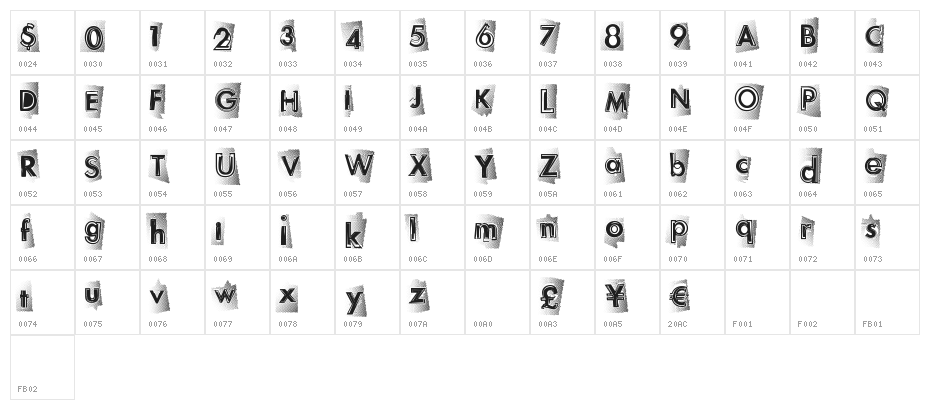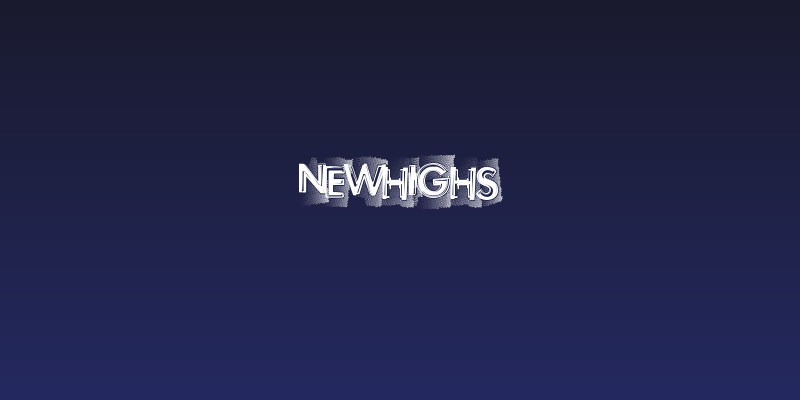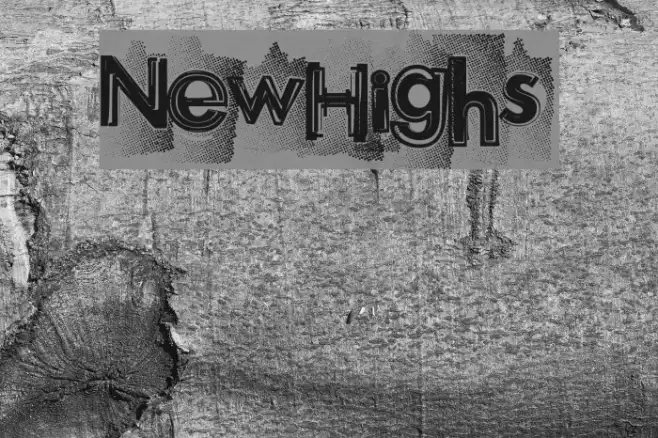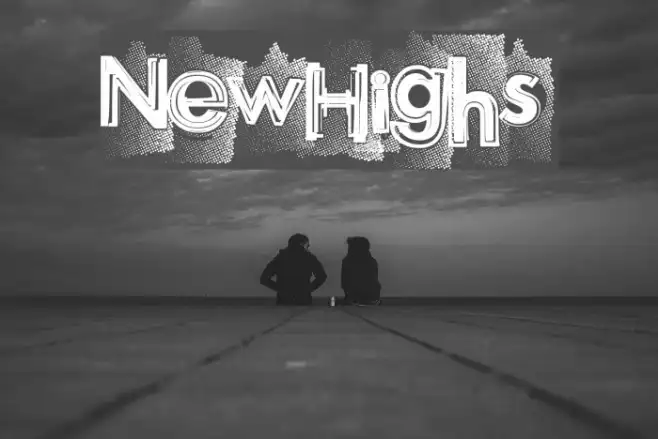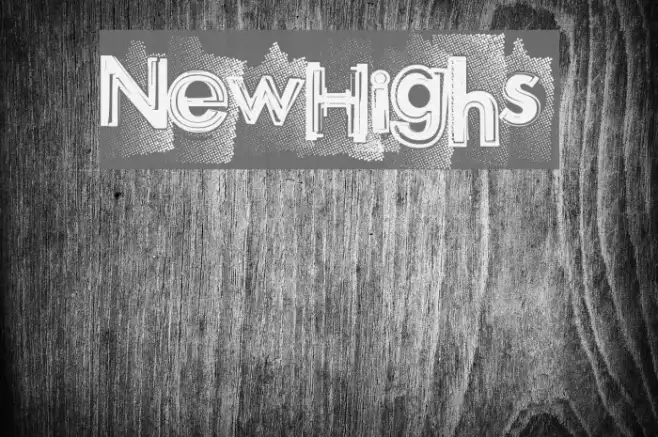
NewHighs Font
NewHighs Description
This font features a bold and dynamic style with a distinct outline effect that gives it a three-dimensional appearance. The uppercase and lowercase letters are designed with a playful yet structured form, making them stand out with their thick strokes and shadowed outlines. The numerals and special characters maintain this bold aesthetic, ensuring consistency across all glyphs. The font's unique design is characterized by its high contrast between the thick main strokes and the thin outlines, creating a visually striking effect. The overall style is modern and decorative, suitable for eye-catching designs.